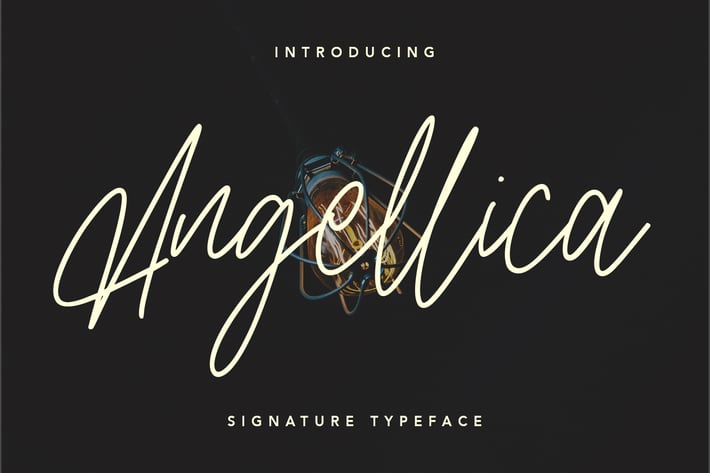
Angellica Signature Script Font
Give your designs an authentic handcrafted feel. "Angellica" is perfectly suited to signature, stationery, logo, typography quotes, magazine or book cover, website header, clothing, branding, packaging design and more.